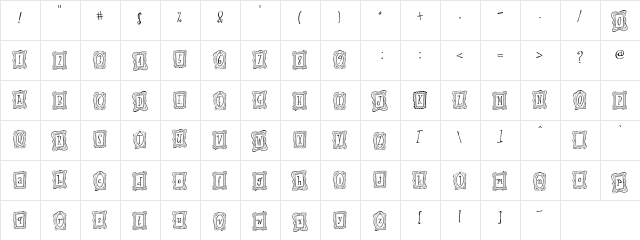
LDJ Antique Frames Regular
Design Context for LDJ Antique Frames Typeface
LDJ Antique Frames has the warm character of retro typography — evoking diners, record sleeves, and the golden age of print advertising.
Font Pairing: Combine LDJ Antique Frames with a simple slab or neutral sans — period-accurate companions reinforce the vintage feel without competing for attention.
Pro Tip: Use LDJ Antique Frames for headlines and pull quotes rather than body copy — its personality is best appreciated in short, focused bursts.